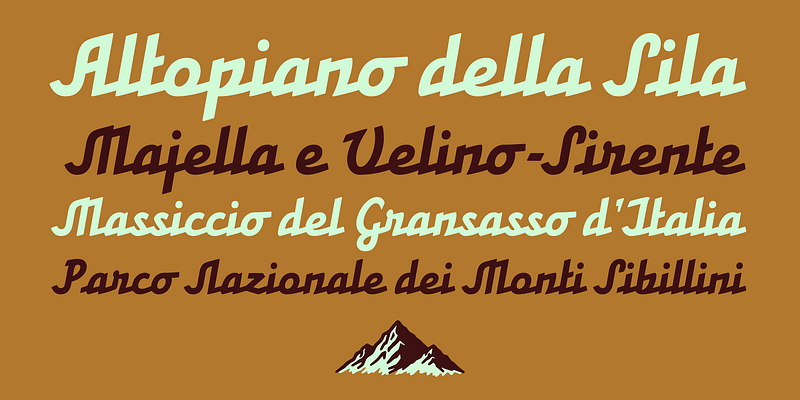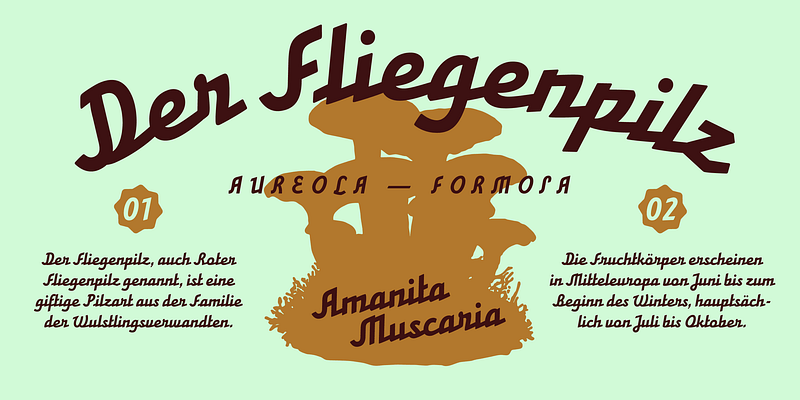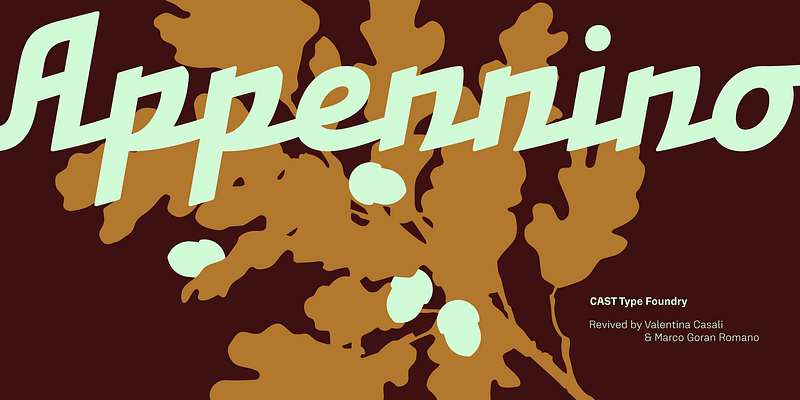
AM Appennino is a bold, low-contrast, script typeface. Like AM Majella, all the letters are joined up. However, unlike Majella, Appennino is not entirely geometric and its letters are fully cursive.